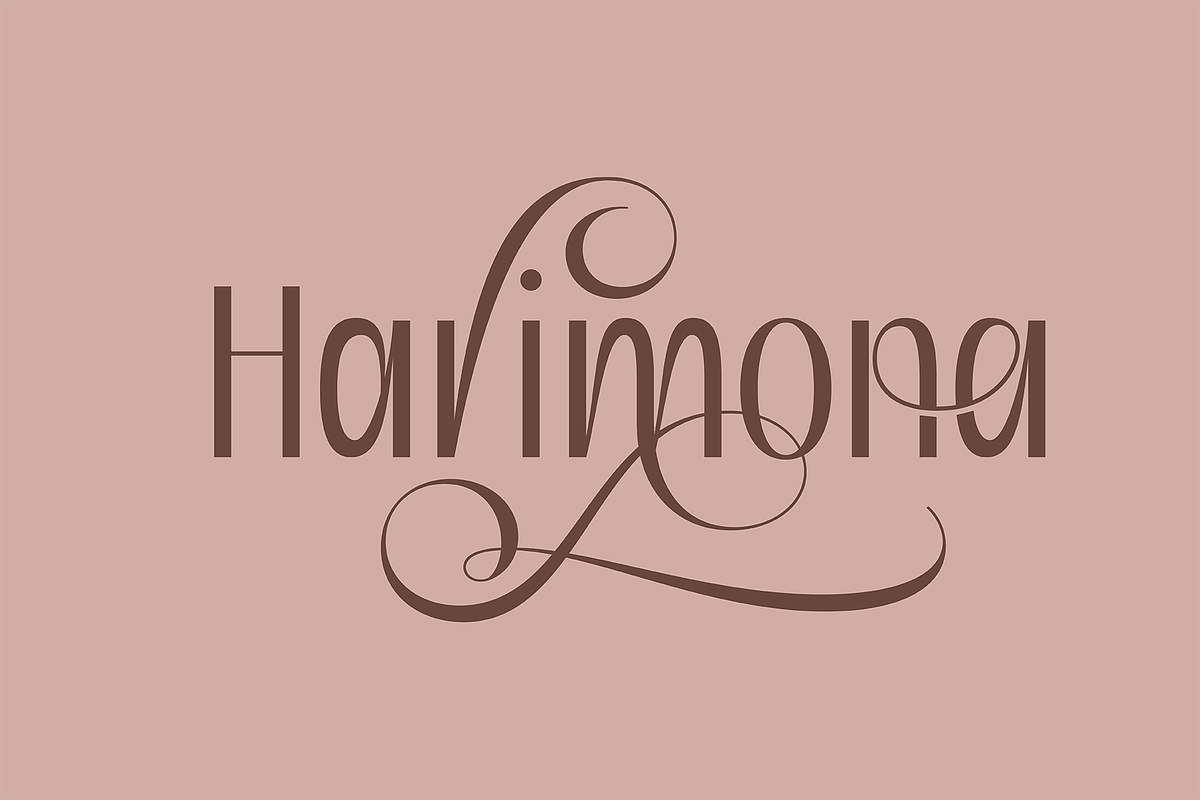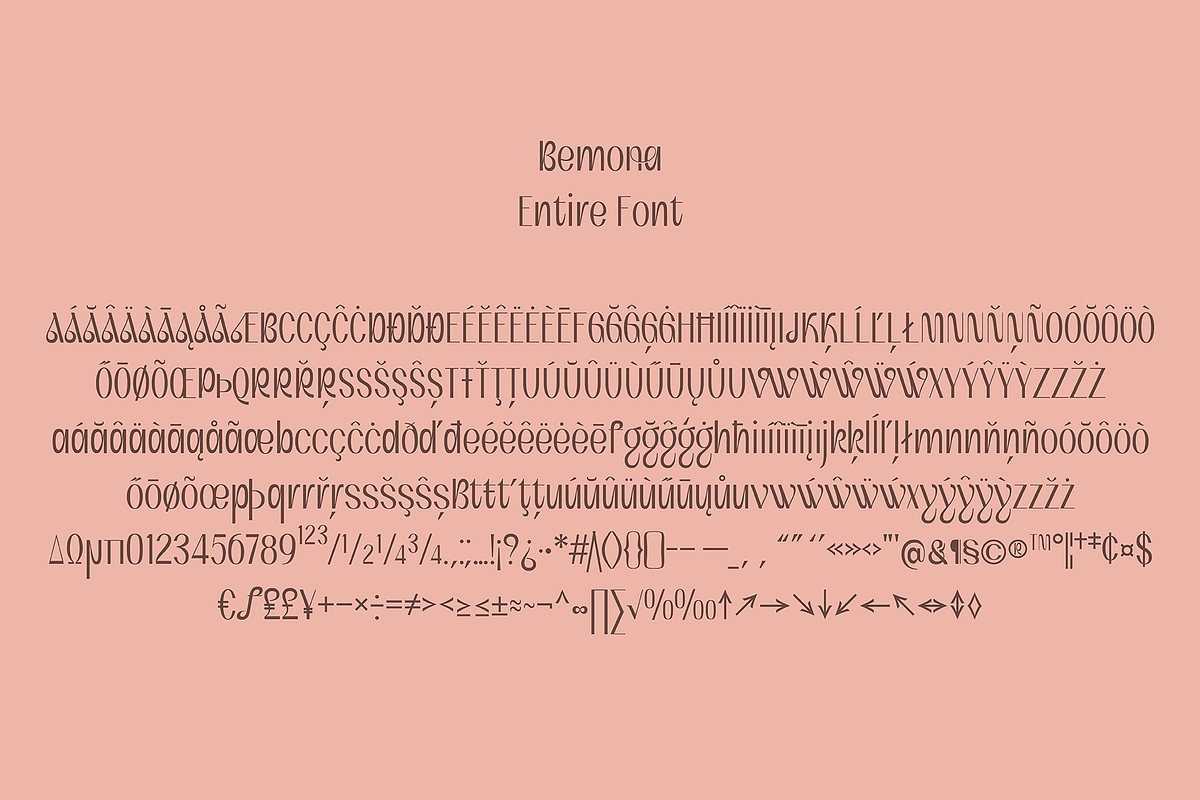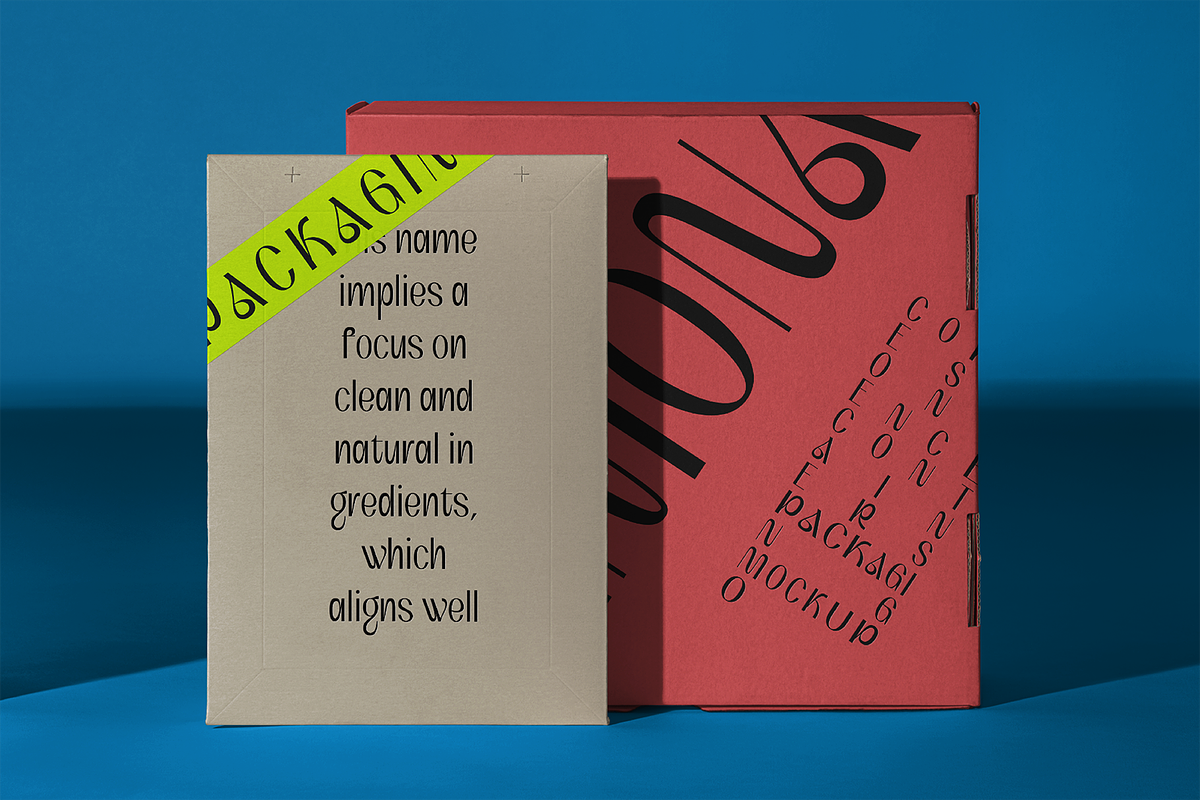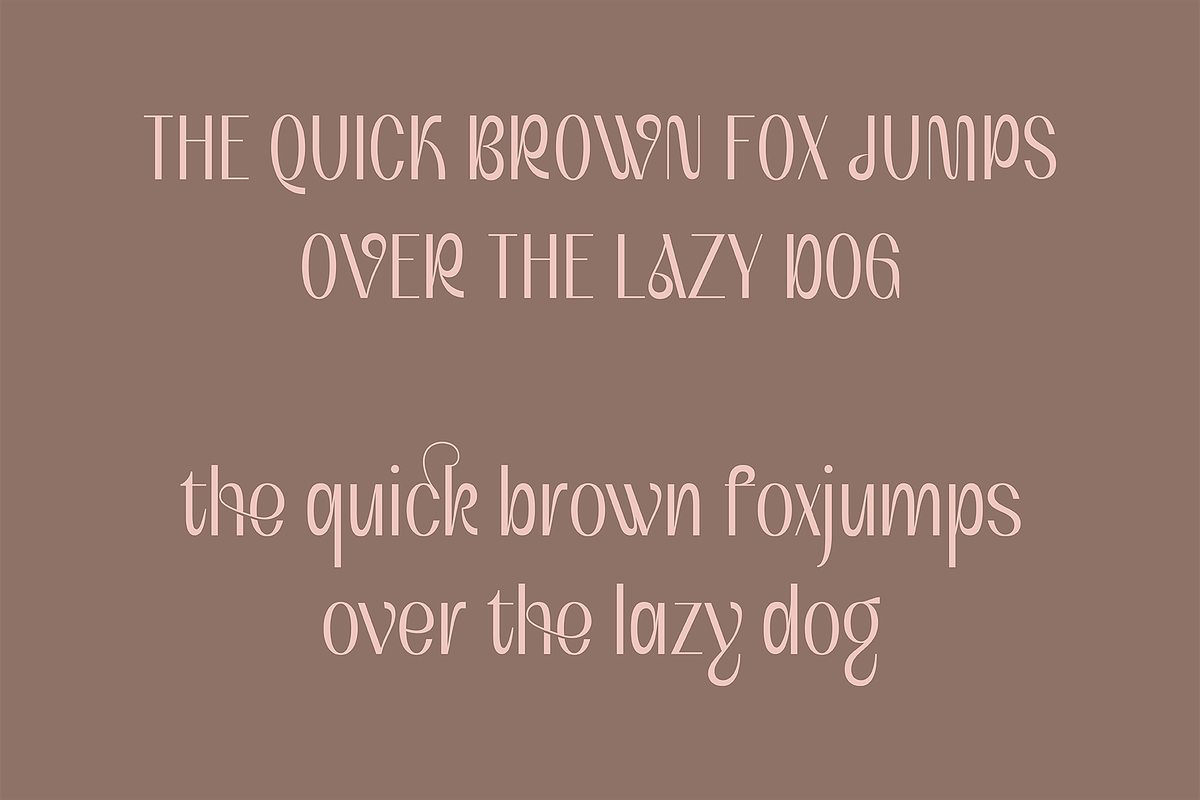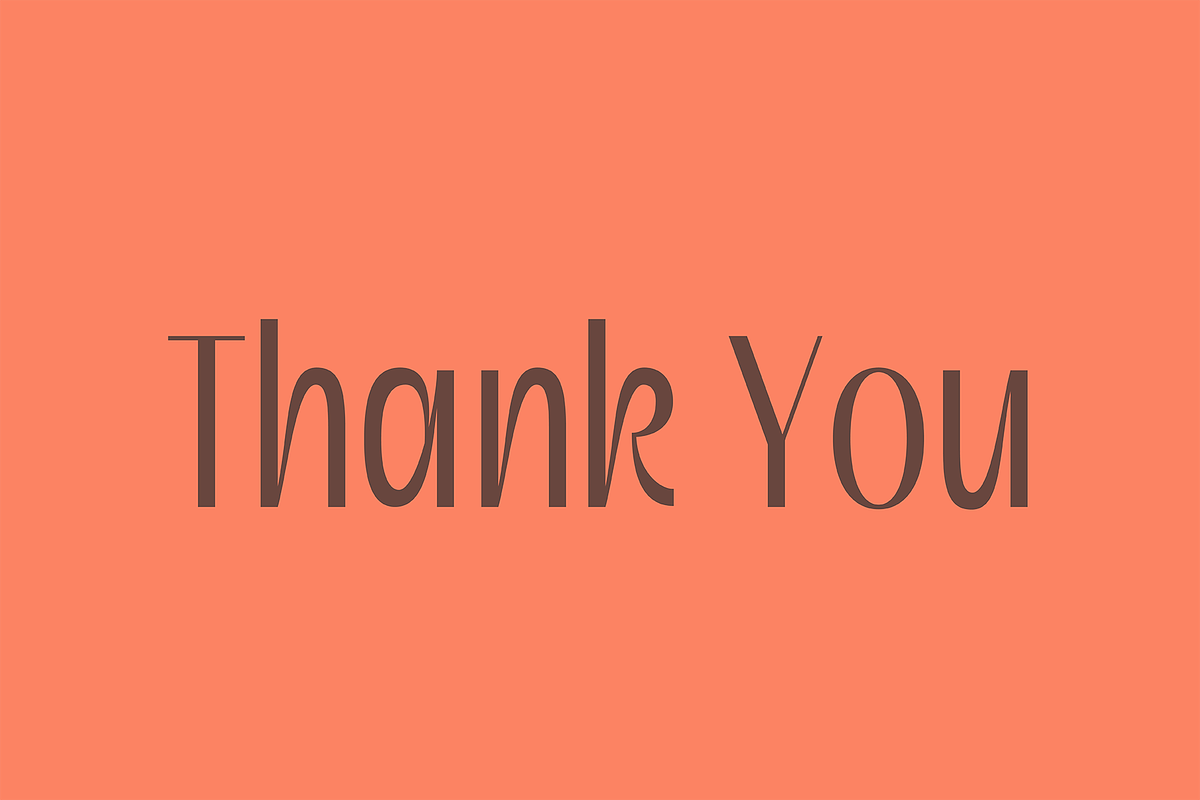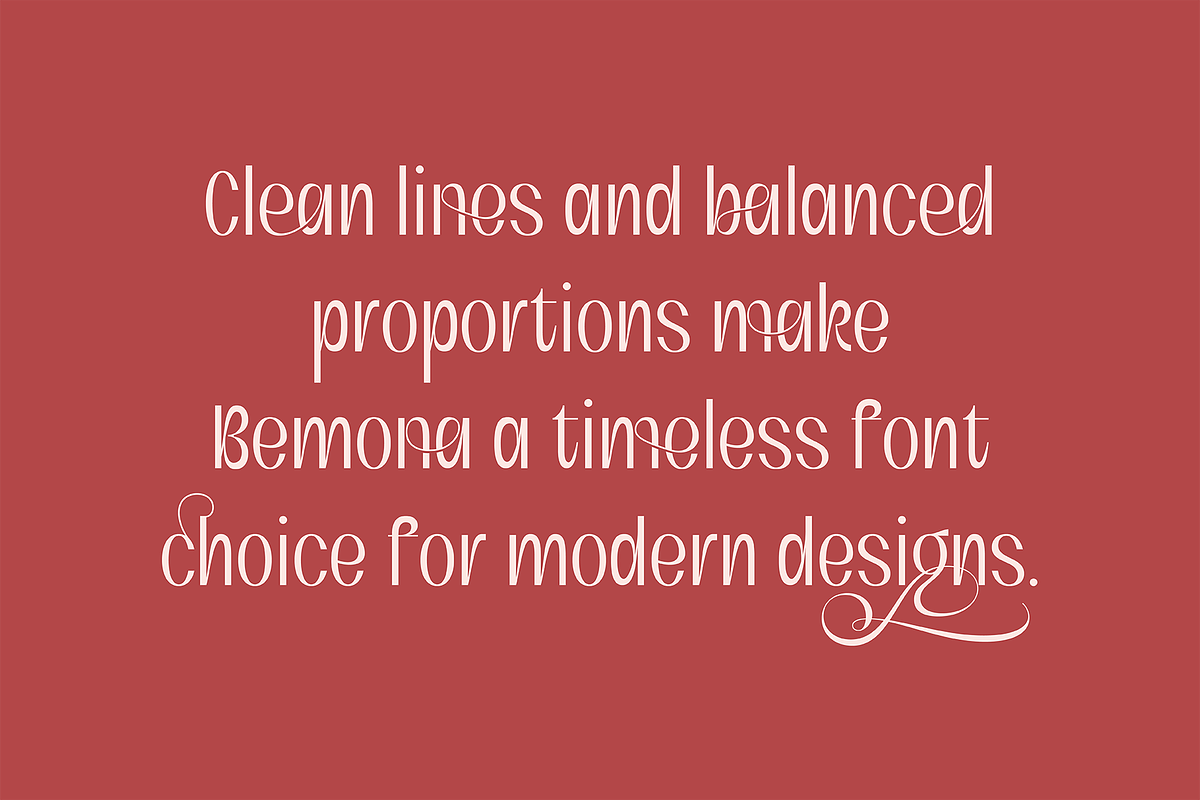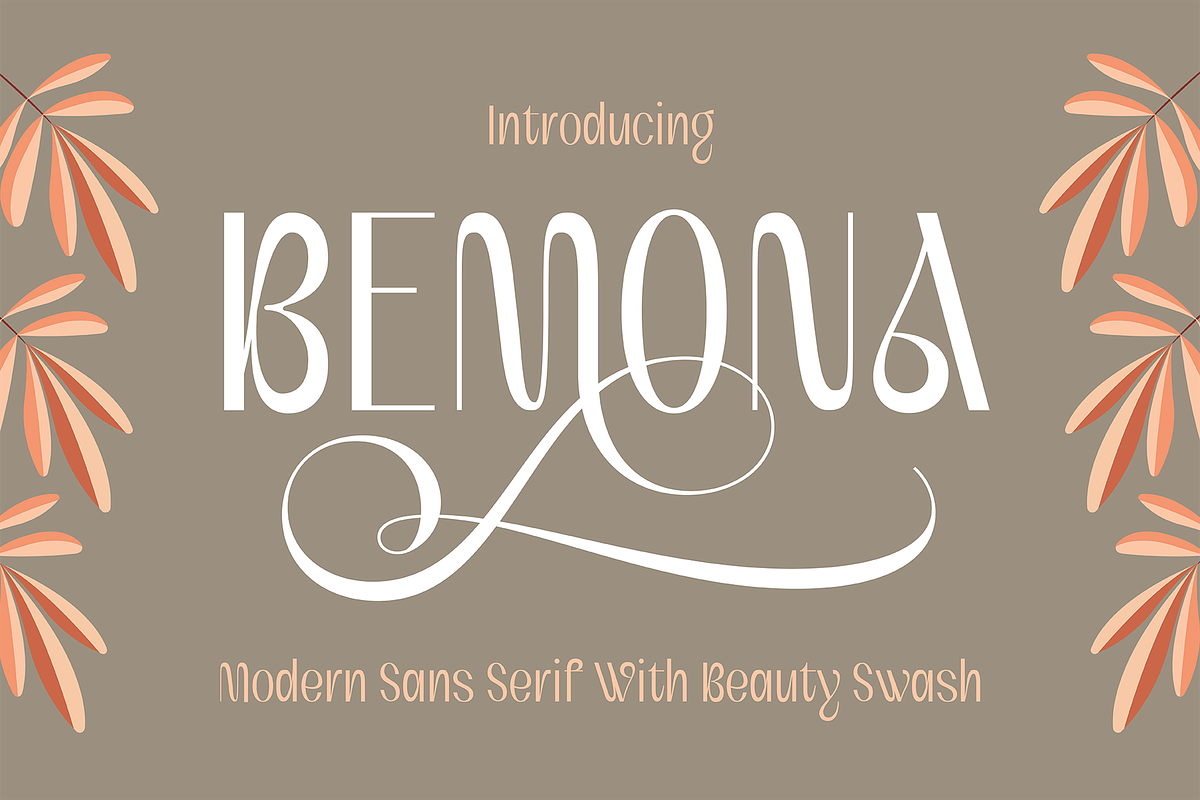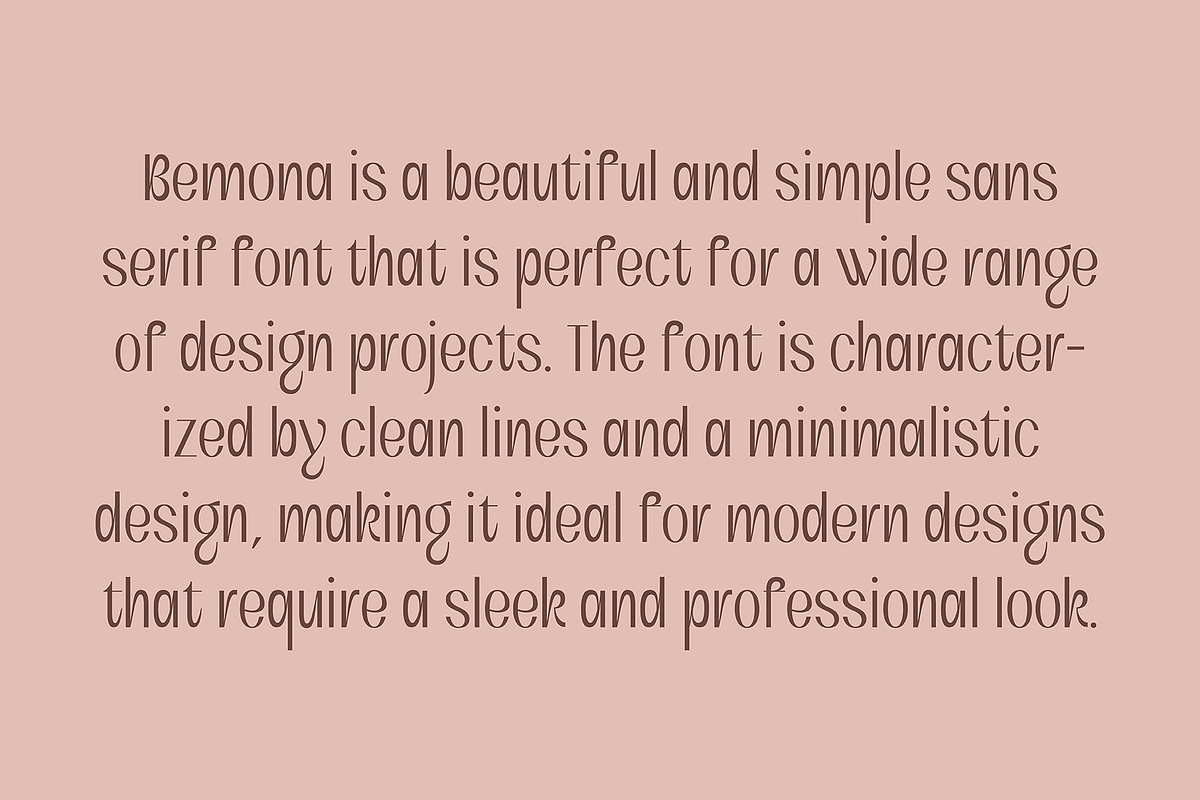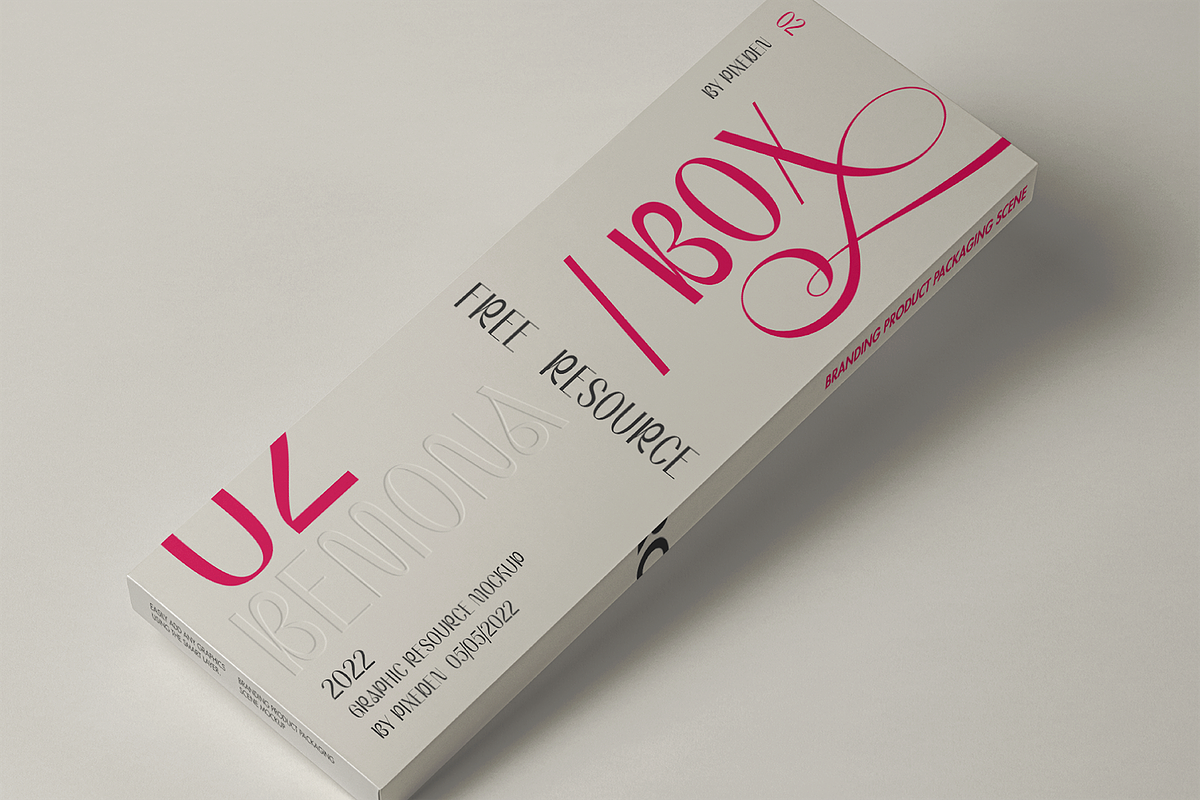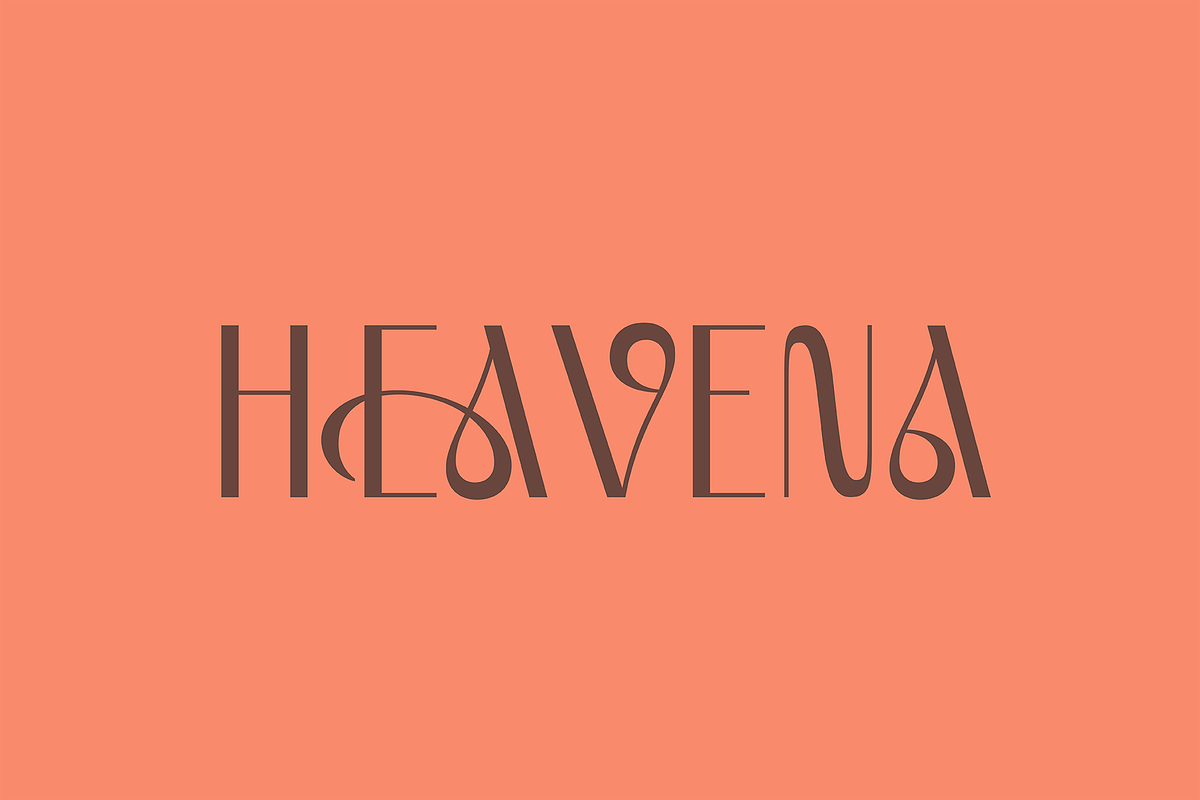
Bemona - Beautiful Simple Sans Serif
Bemona is a beautiful and simple sans serif font that is perfect for a wide range of design projects. The font is characterized by clean lines and a minimalistic design, making it ideal for modern designs that require a sleek and professional look.
Bemona is versatile and can be used for various design applications, including branding, logos, web design, packaging, and more. The font features a balanced combination of uppercase and lowercase letters, numbers, and punctuation marks that are easy to read and pleasant to the eye.
One of the key features of Bemona is its simplicity. The font is easy to use and does not overpower your design. It also has a timeless quality that makes it suitable for both contemporary and classic designs. Additionally, Bemona is a webfont, which means that it is optimized for use on digital platforms and will look great on screens of all sizes.
In summary, Bemona is a beautiful and simple sans serif font that is perfect for modern designs that require a clean and professional look. It is versatile, easy to use, and has a timeless quality that makes it a great addition to any design project.